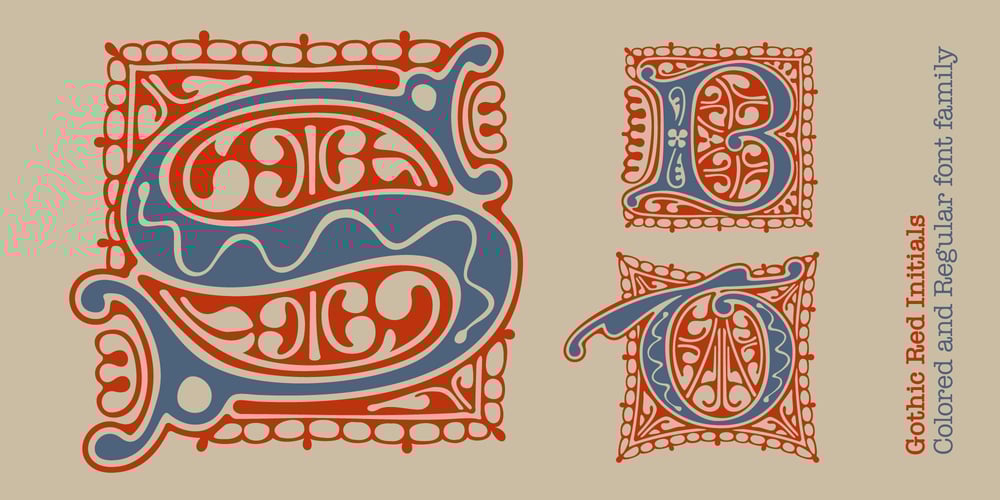
Gothic Red Initials Font Family was designed by Roman Korolev and published by Kaer. Gothic Red Initials contains 3 styles and family package options. I found the inspiration for this font in the incunable called Facta et dicta memorabilia. An incunable is a book with Gothic Drop caps that was printed in the earliest stages of printing in Europe, up to the year 1500. It was printed in Peter Schöffer typography in 1471, Mainzis (German).Valerius Maximus was a 1st-century Latin writer and author of a collection of historical anecdotes: Facta et dicta memorabilia. During the Middle Ages, Valerius Maximus was one of the most copied Latin prose authors. More than 600 medieval manuscripts of his books have survived as a result.I paid special attention to the artistic design of the Medieval alphabet in red and blue colours. —You can use color fonts in PS CC 2017+, AI CC 2018+, ID CC 2019+, macOS 10.14 Mojave+Please note that the Canva & Corel & Affinity doesn’t support color fonts!—Thank you!